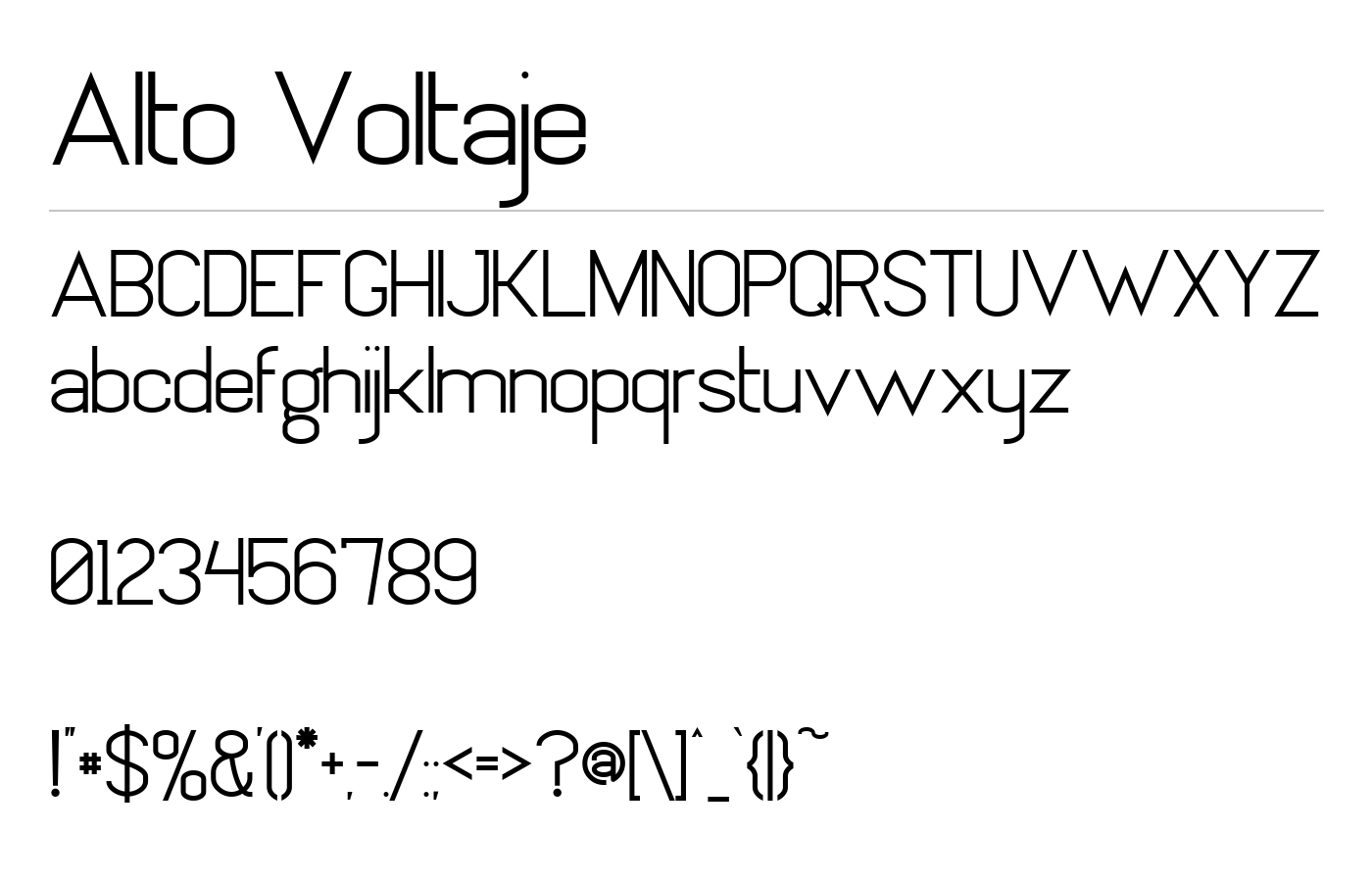
Alto Voltaje is a sleek, modern sans serif font with a narrow, condensed style that gives it a sharp and elegant look. Its thin strokes and clean geometric shapes create a contemporary, minimalist feel, making it perfect for tech, luxury branding, and editorial headlines where a sophisticated yet striking impression is desired. This font works well in designs that need a refined and stylish presence without sacrificing readability.
Alto Voltaje Font